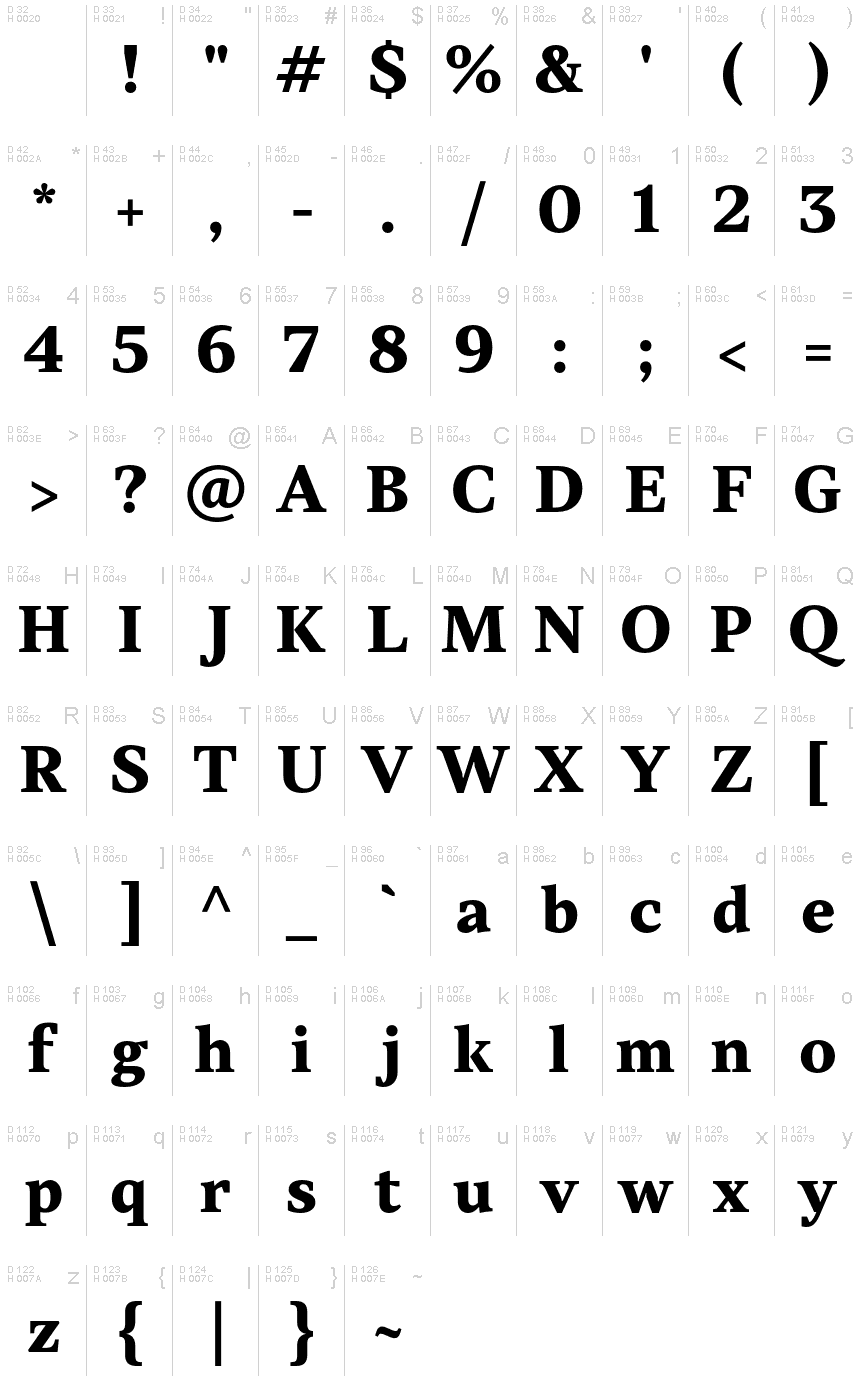
TT Jenevers Trl ExtraBold
TT Jenevers ExtraBold is a stunning serif font designed by TypeType Foundry. Its bold and assertive appearance makes it perfect for headlines, titles, and logos. This extra-bold typeface carries a confident personality that commands attention from the viewer. With its clear lines and detailed curves, TT Jenevers ExtraBold adds elegance to any design project that requires a font with an edge. From fashion magazines to advertising campaigns, this font is versatile enough to suit any creative vision. Embrace the power of TT Jenevers ExtraBold and elevate your design game with this stunning typeface.